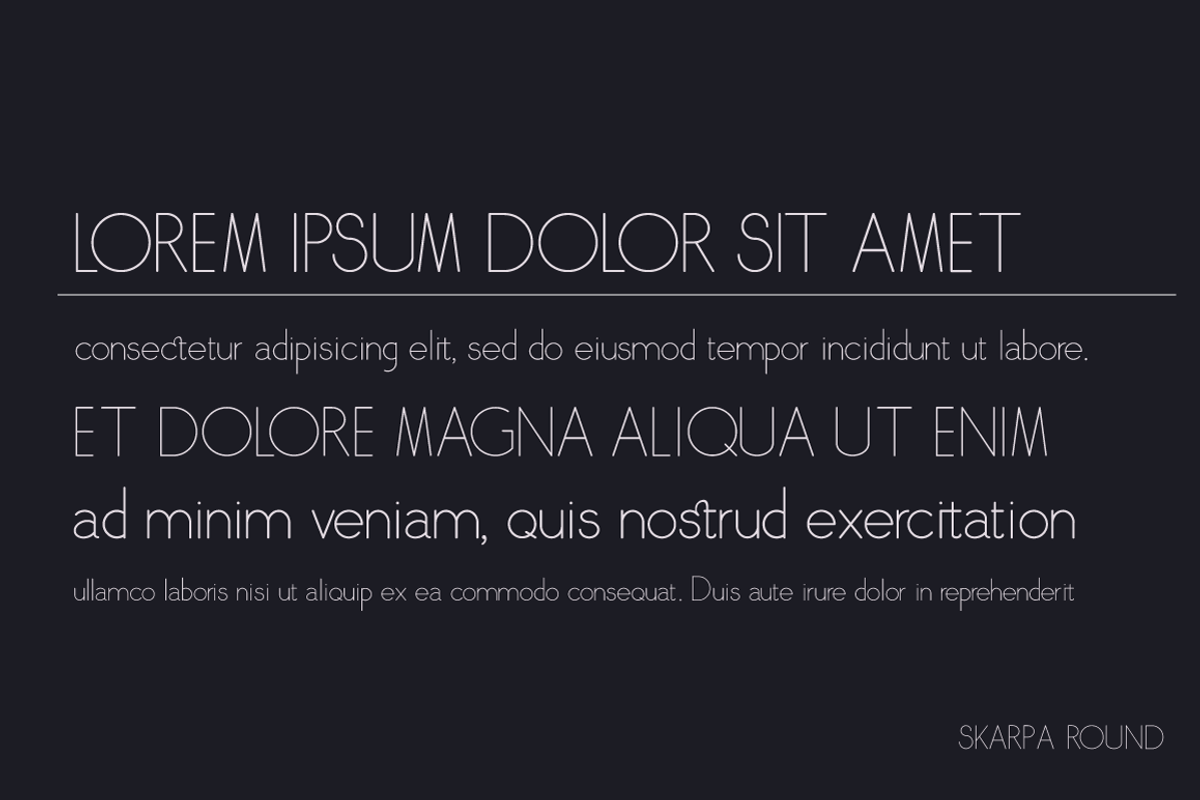
The Skarpa Round.otf Font Free Download is a smooth, contemporary typeface that combines rounded, geometric shapes with modern aesthetics. Its friendly and approachable design makes it perfect for a wide variety of projects, including branding, websites, logos, and promotional materials. Whether you're designing for a creative brand, digital content, or a casual event, Skarpa Round brings a polished and versatile look to your designs.
Skarpa Round.otf Font Free Download is ideal for designers who seek a font with a modern, yet inviting feel. Perfect for corporate designs, modern branding, or any project requiring sleek and professional typography, this font will enhance your creative work. Download it today and give your designs a contemporary and rounded look with Skarpa Round!